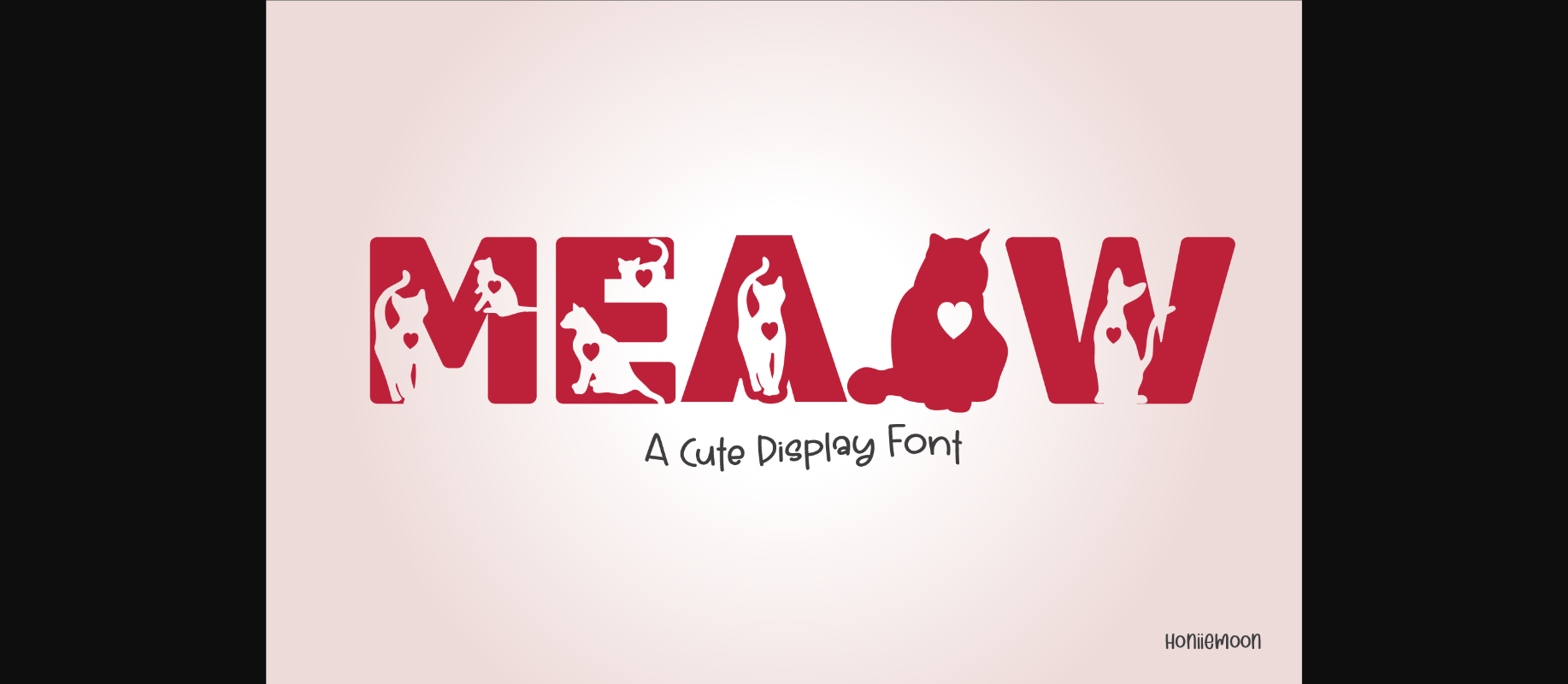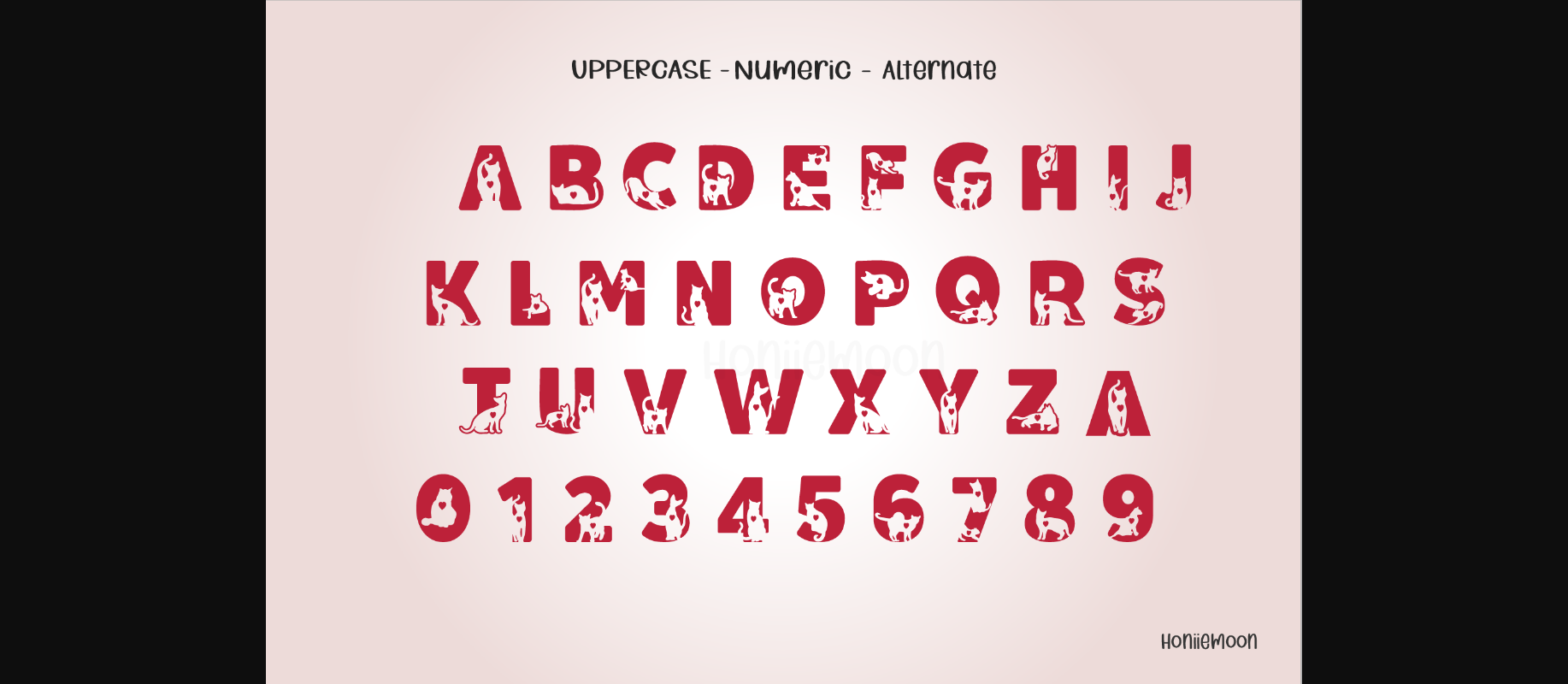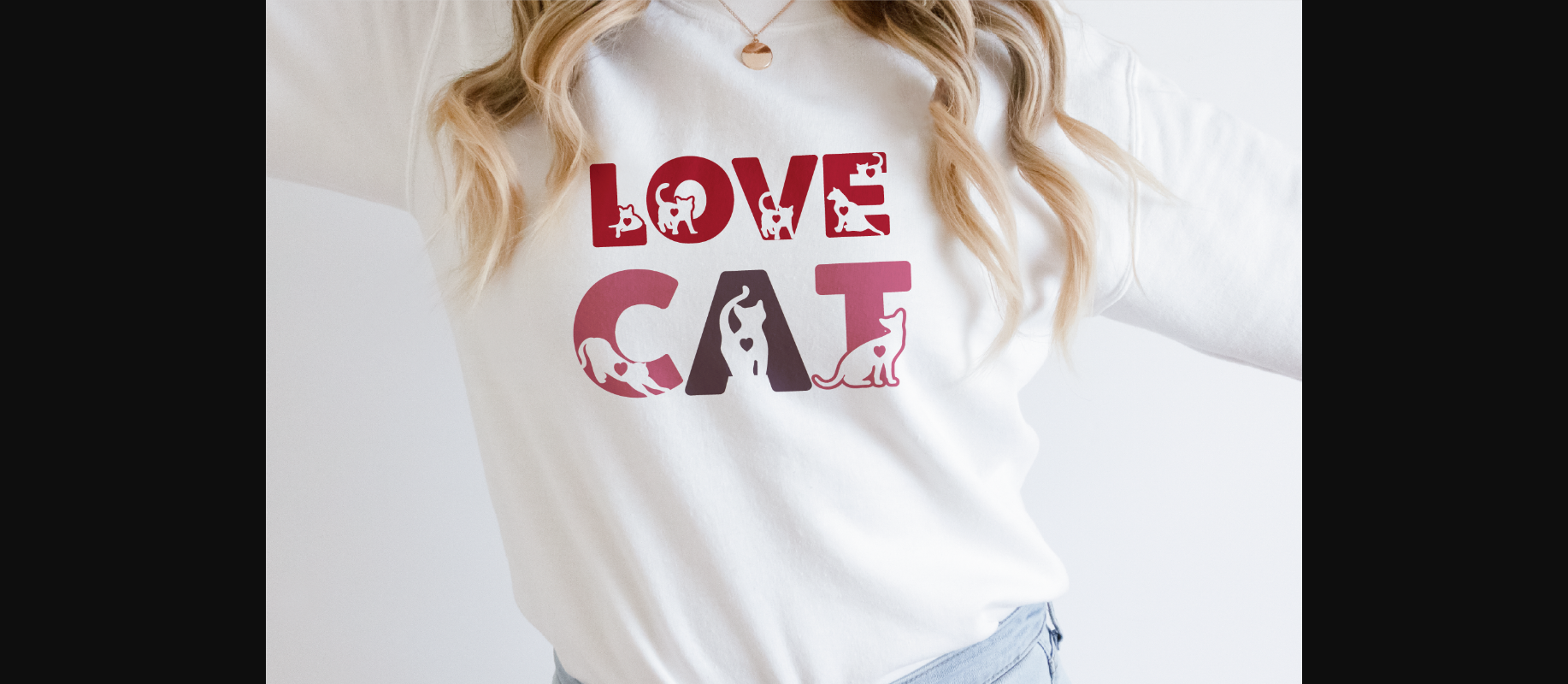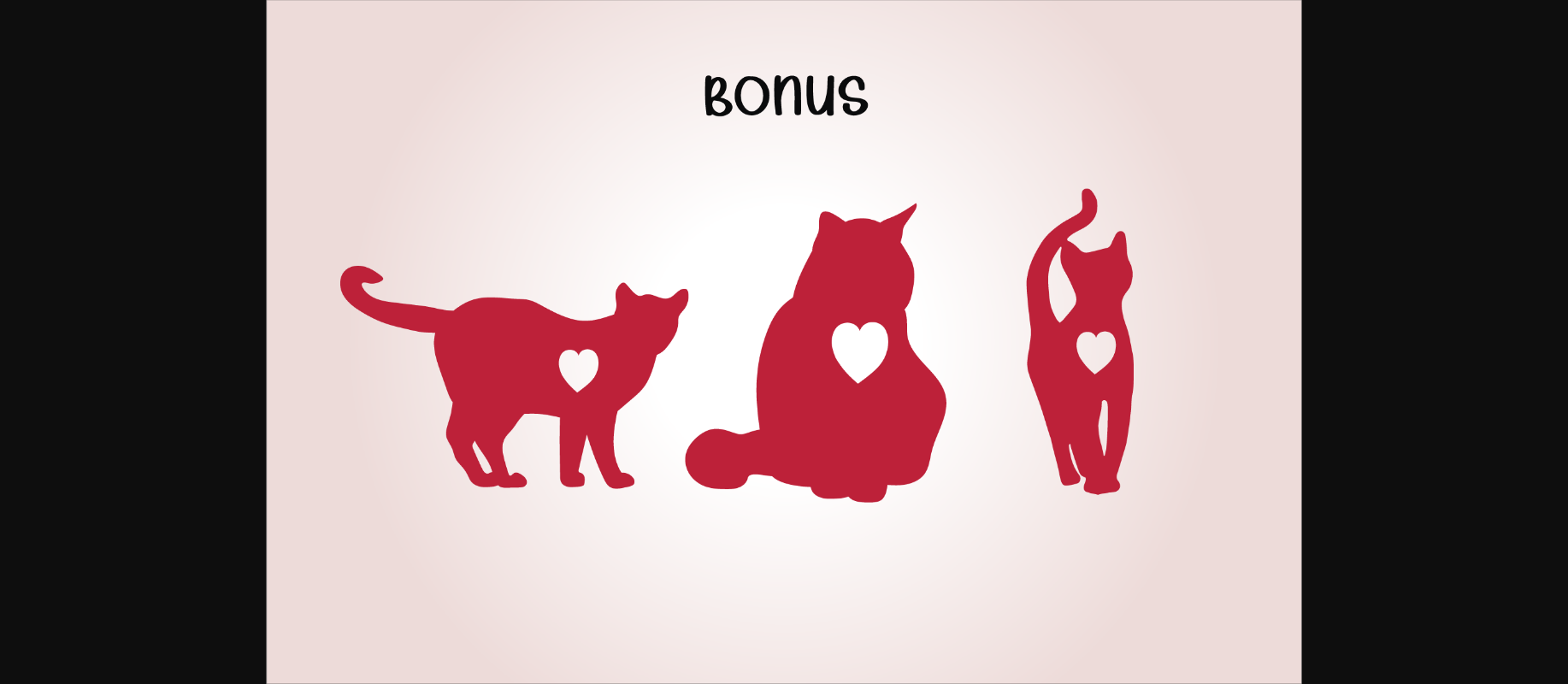
About Meaow Font
Meaow is a cool and fun decorative font. It looks both cute and jolly and it will enhance each of your designs. The only limit is your imagination. Add this cute and adorable font to each of your creative ideas and notice how it makes them come alive!